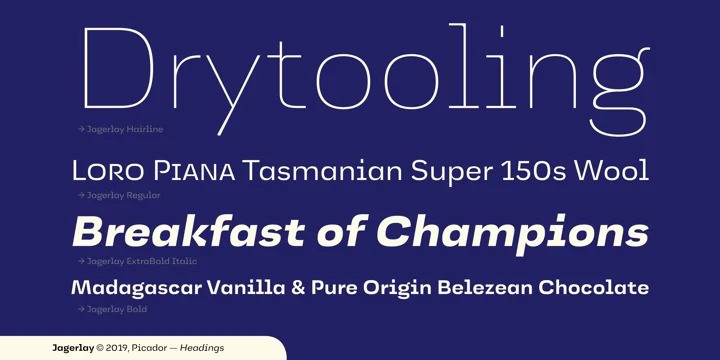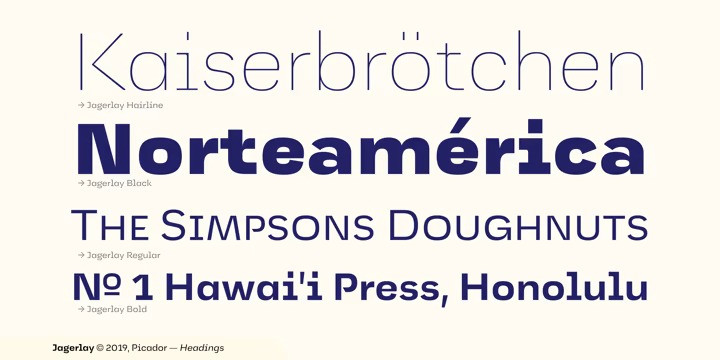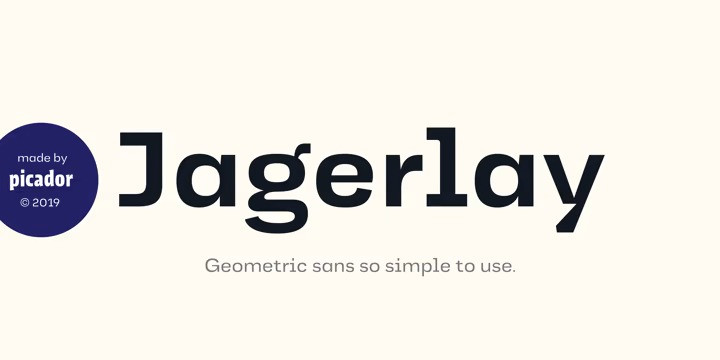
Jagerlay Sans Font
Jagerlay was brought to life to cope with diverse and complex data gathered in presentations, corporate identity and other office documents. Its geometric shape and characteristic endings are reminiscent of classic typography from Sci-Fi Movies from the 80’s. The simple design makes Jagerlay outstandingly easy to use for every user. Jagerlay pairs with other typefaces in the blink of an eye – it goes well with display, serif or script fonts.
The whole family consists of 9 weights and matching italics. Every style has almost 900 glyphs. Jagerlay has many opentype features such as tabular figures, fractions, superscript and subscript, small caps and arrows. Low contrast makes it easy to read. The rest makes it easy to use.